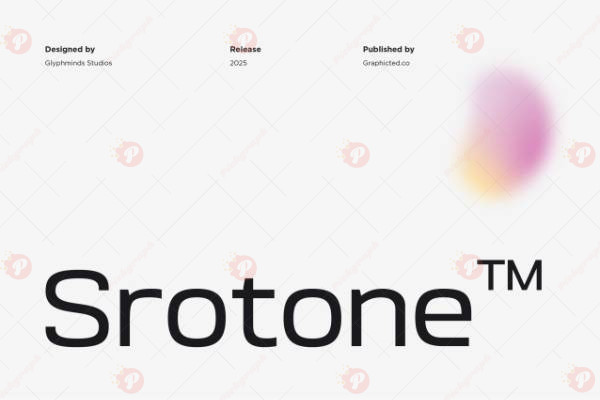
The Srotone Free Font is an elegant and modern typeface, perfect for headlines, posters, logos, branding, social media graphics, and display typography. Its clean lines and contemporary design make your designs look professional and stylish.
Ideal for digital and print projects, Srotone Free adds sophistication, clarity, and a modern touch to your creative work.
Style: Modern / Elegant / Display Typeface
Perfect for: Headlines, Posters, Logos, Branding, Social Media & Display Typography
Elevate your designs with the elegant and versatile Srotone Free Font.